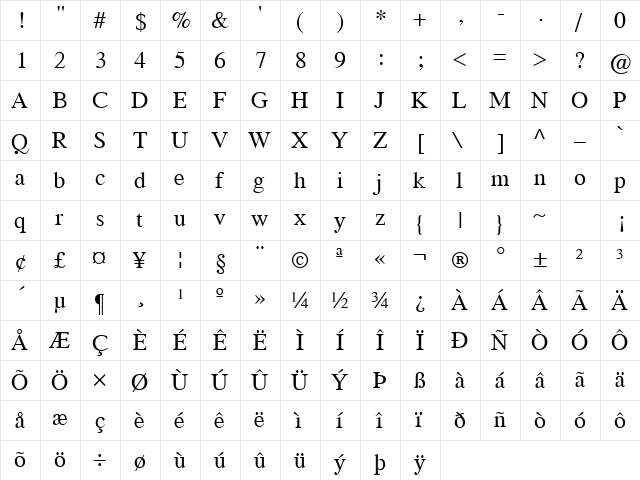
Saratoga Regular
Design Context for Saratoga Typeface
Saratoga takes a measured approach to typography — its balanced proportions and neutral character make it a reliable workhorse for both digital and print work.